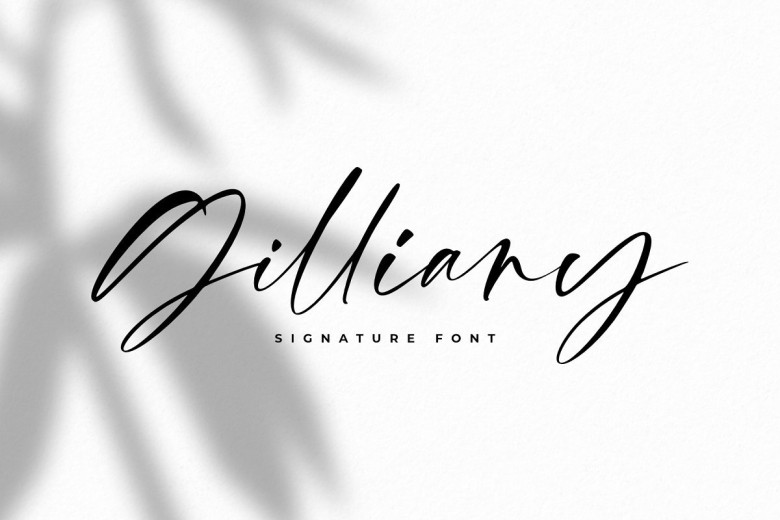
Gilliany Signature Script Font
Gilliany Script Font is a magical signature font carefully created with a touch of elegance. This font is the perfect fit for making original and outstanding designs. This type of font perfectly made to be applied especially in headlines which is need a standout font, and the other various formal forms such as invitations, labels, logos, magazines, books, greeting / wedding cards, packaging, fashion, make up, stationery, novels, labels or any type of advertising purpose.